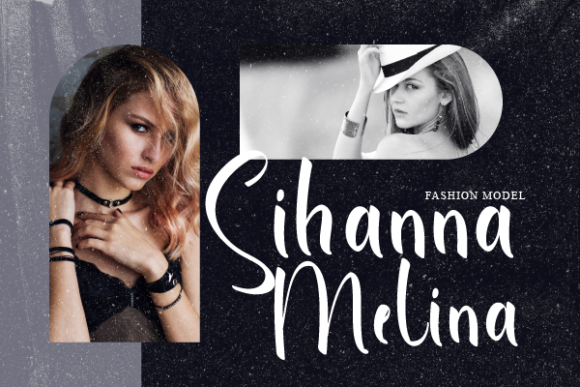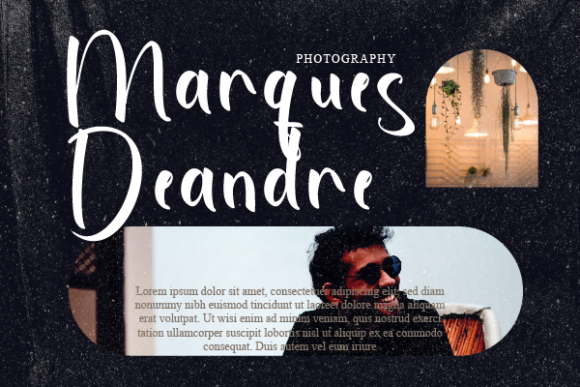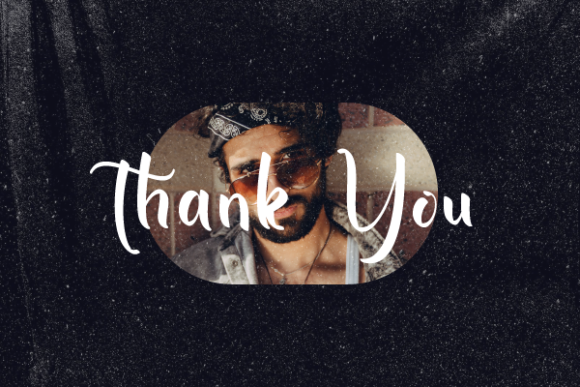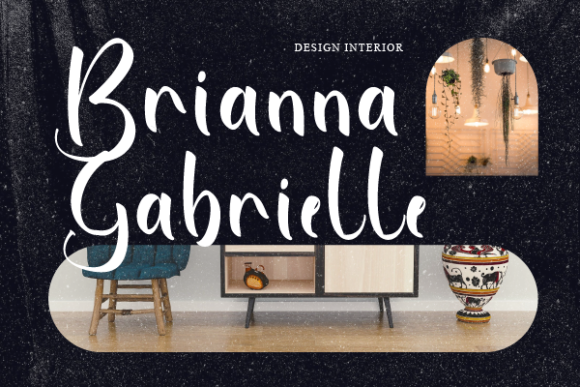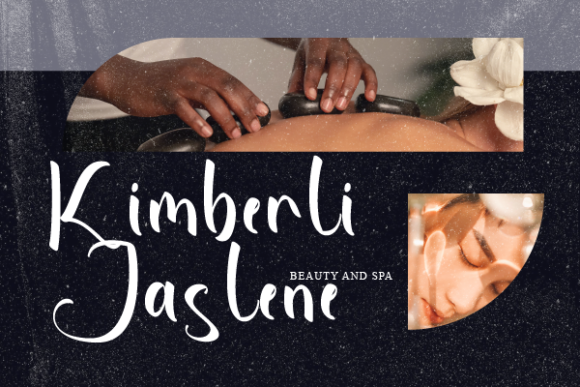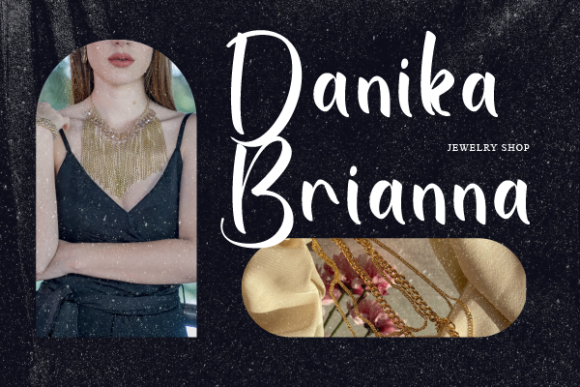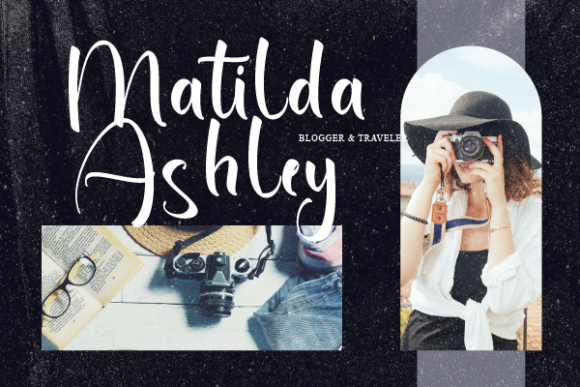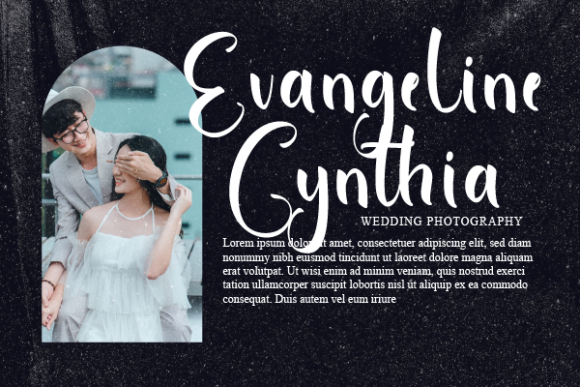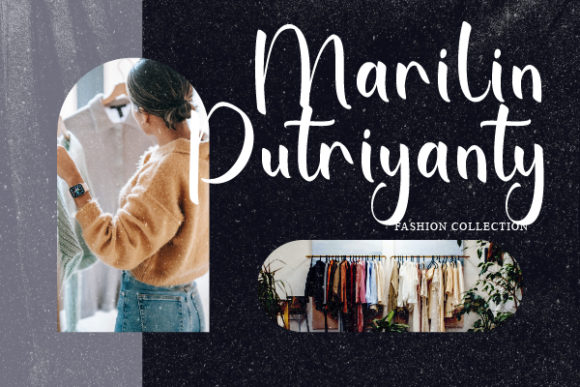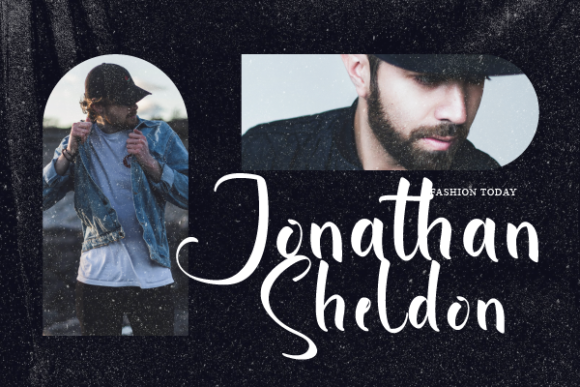
Marilyn Catleugh Font
About Marilyn Catleugh Font
“Marilyn Catleugh” emerges as an exquisite and dainty handwritten font, adorned with sweet and delicate swashes that infuse an air of elegance and originality. This font’s unique charm makes it a perfect fit for a diverse array of crafty ideas, ranging from letterheads and titles to stationery and beyond.
Visualize “Marilyn Catleugh” as a brush that gracefully glides across the canvas, leaving behind a trail of intricate strokes and swashes that form a visual symphony of beauty. Its elegant and dainty nature elevates your projects, transforming them into visual treasures that radiate with charm and creativity. As you integrate this font into your creations, you’ll embark on a journey where your concepts evolve into captivating visual narratives.
Beyond its visual allure, “Marilyn Catleugh” captures an essence of authenticity and creative expression. Its handwritten nature adds a personal touch, turning your designs into more than just visuals – they become expressions of artistry and elegance.
“Marilyn Catleugh” stands as a versatile companion in your creative journey. Its adaptability ensures seamless harmony with various styles, themes, and intentions. Whether you’re enhancing the allure of your letterheads, adorning titles with a unique touch, or infusing your stationery with a sense of sophistication, this font amplifies the resonance of your message.
In a world where design communicates through subtle details and aesthetics, “Marilyn Catleugh” becomes your tool for crafting designs that evoke emotions and leave a lasting impact. Let its sweet and delicate swashes be the artistic flourishes that enhance your creations, infusing them with a touch of elegance and originality. Embrace the allure of “Marilyn Catleugh” and watch as it transforms your projects into captivating showcases of artistic excellence, resonating deeply with all who engage with them.